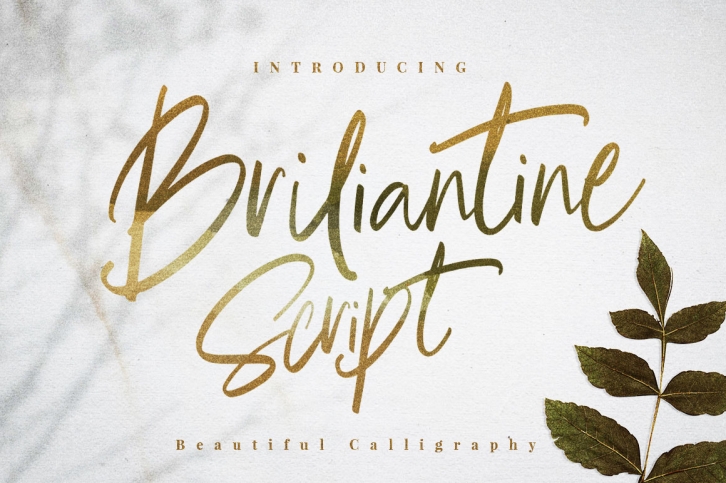
Briliantine Script is a beautiful font that was designed by Putra Khan. It's a great choice for designers and creatives who need such a font. It was released on April 16, 2019 and the file size is 4.45 MB. Briliantine Script may give a more youthful, expressive and casual look to your project. It is a very beautiful, refined, elegant, and high-quality font.